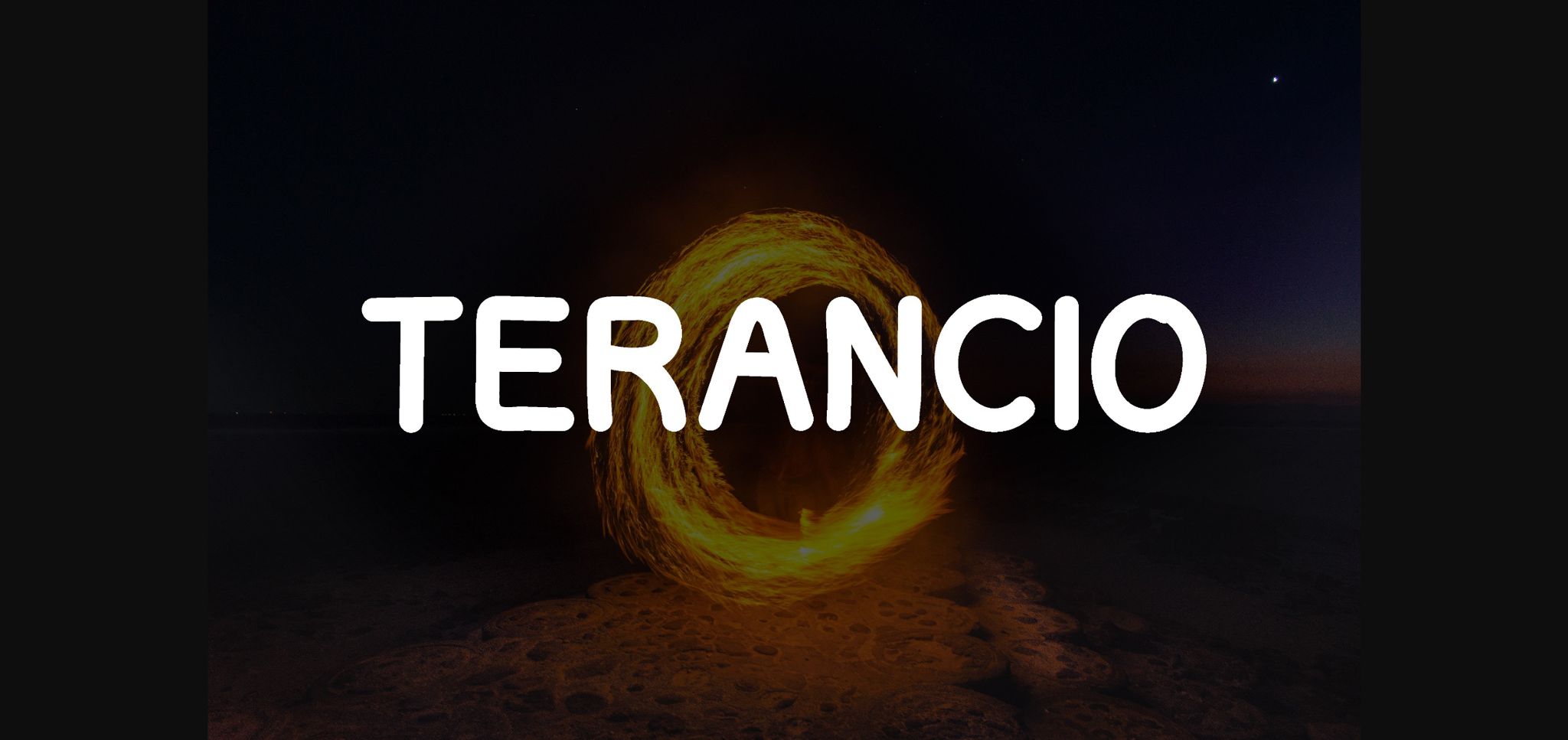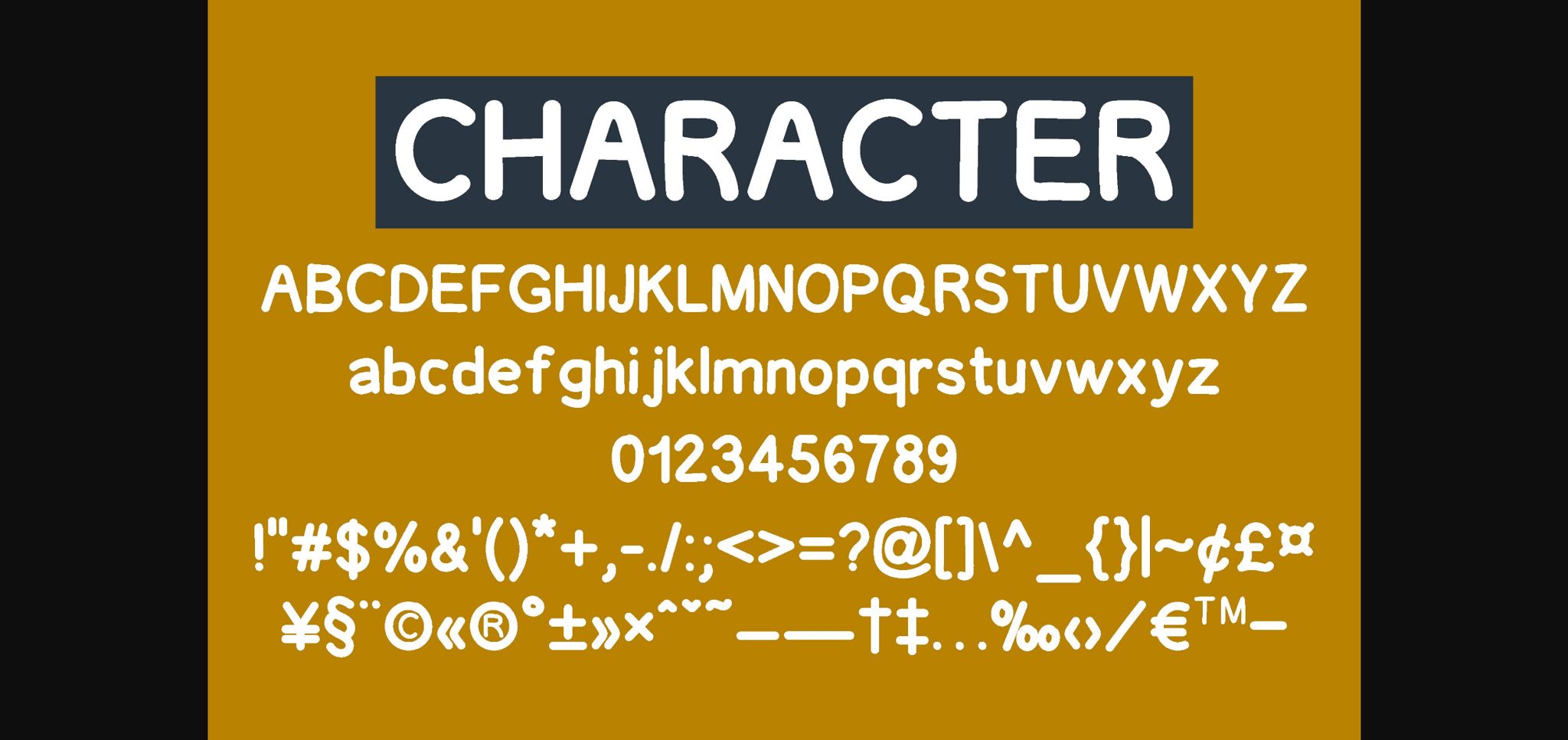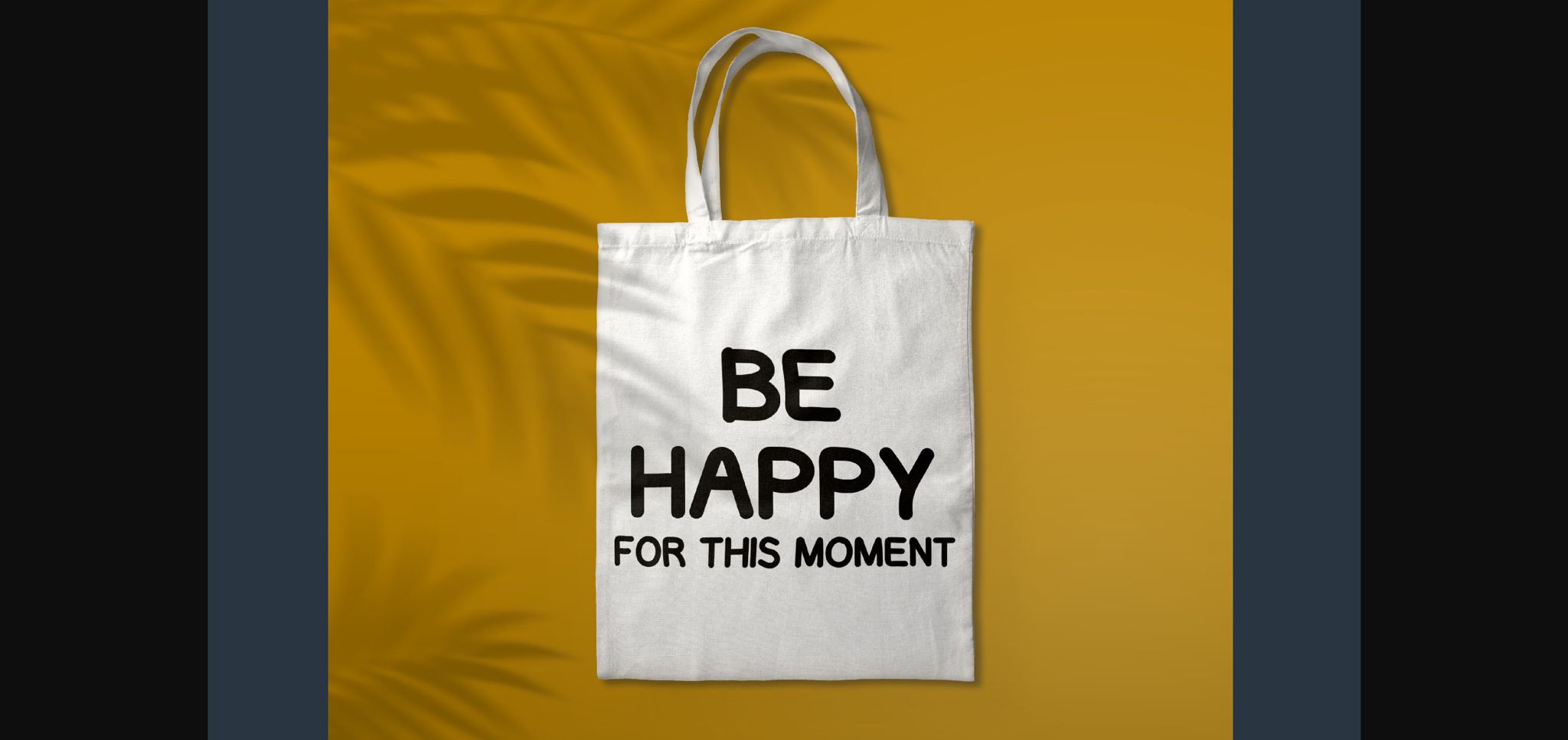
About Terancio Font
Terancio is a regular and friendly sans serif font that looks cute. It works great for films, holiday cards, wedding invitations, quotes, advertisements, crafts, digital design, and more. Itβs a super fun and charming font that goes anywhere! Create something beautiful today with Terancio.